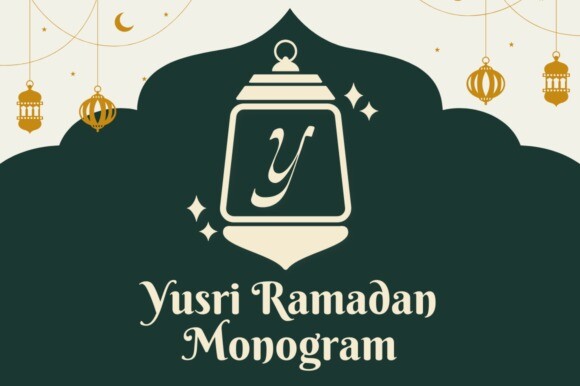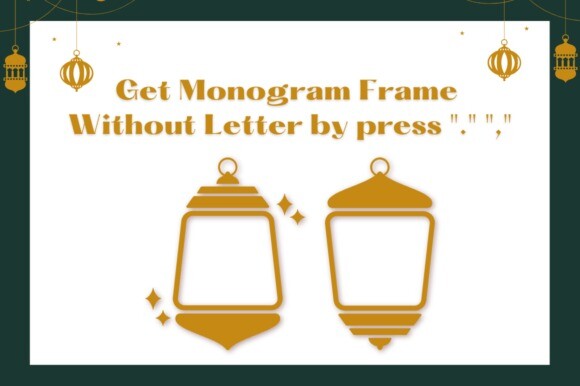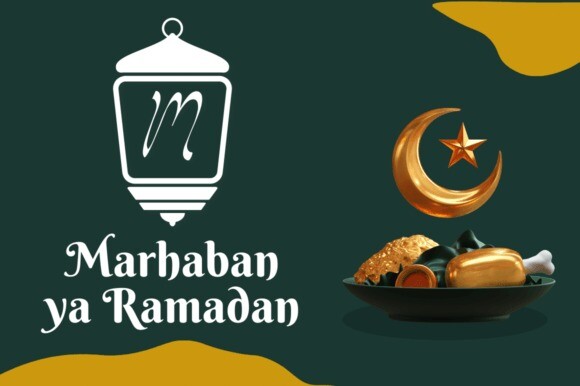
Yusri Ramadan Monogram Font
The Yusri Ramadan Monogram font is a typeface that is designed with a Ramadan theme in mind.
Yusri Ramadan Monogram font is characterized by its elegant and stylish design, with clean lines and a modern aesthetic.
It is suitable for use in a variety of contexts, including invitations, cards, branding materials, and other design projects
Comes in with 2 styles.
Just simply change between uppercase and lowercase to see the different styles!
Include frame design without letter, just click “.” or “,”
change the letter with your style.